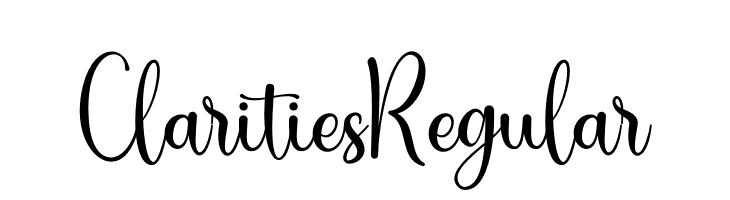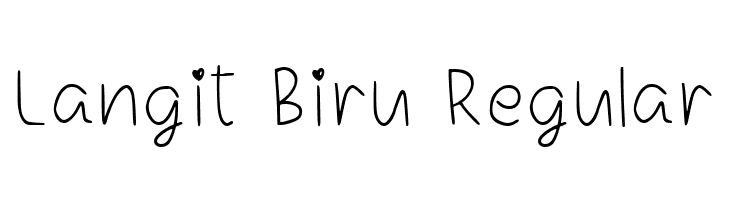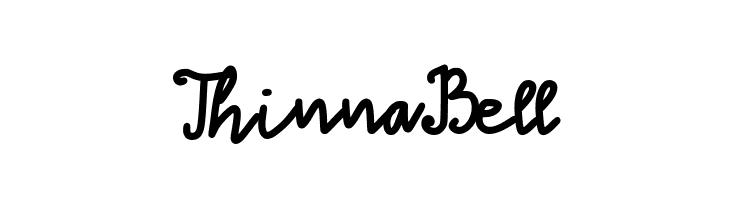
A playful handwritten font with a whimsical and casual style.
A charming and elegant handwritten font with fluid, cursive strokes.
A decorative and elegant script font with modern flourishes.
A bold, geometric font with sharp angles and a modern aesthetic.
A bold, decorative font with high contrast and unique embellishments.
A bold, modern script font with a playful, handwritten style.
A bold, textured font with a hand-drawn, brush-stroke effect.
A graceful and elegant script font with flowing, connected letters.
A whimsical, hand-drawn font with spiral embellishments and uneven strokes.
A modern, geometric sans-serif font with balanced proportions.